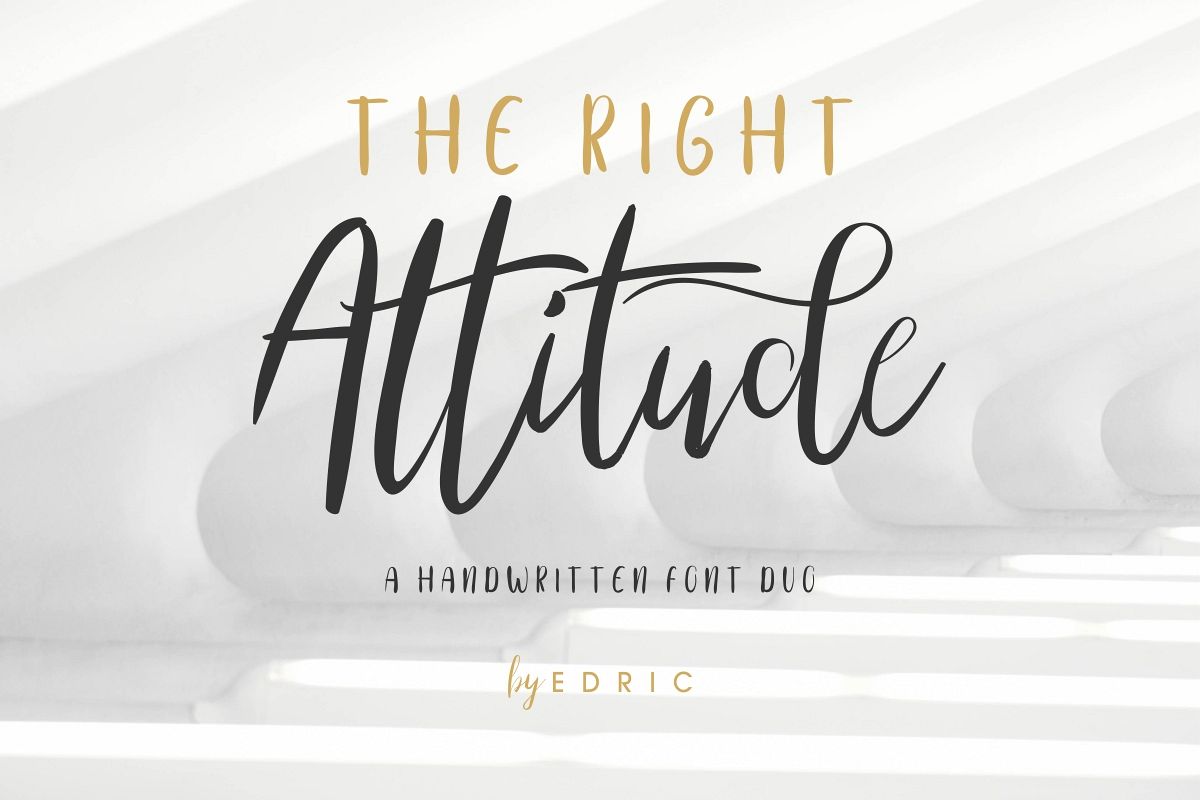
TheRightAttitude
What’s up Everyone! Introducing our newest font : TheRightAttitude ! This is a new duo font : Calligraphy Script and Sans DisplayThis font will Work on PC & Mac with Simple installations. Accessible in the Adobe Illustrator, Adobe Photoshop, Adobe InDesign, even work on Microsoft Word. It’s also PUA Encoded Characters – Fully accessible without additional design software.Purchase with confidence! =)